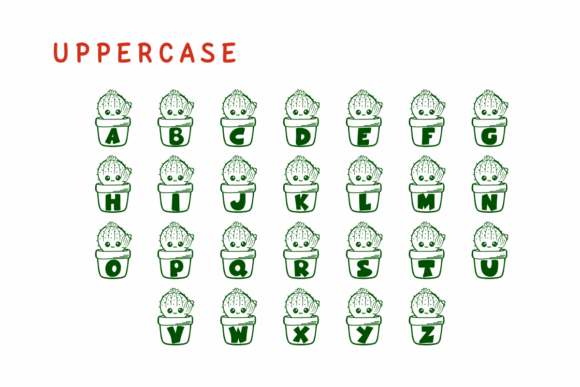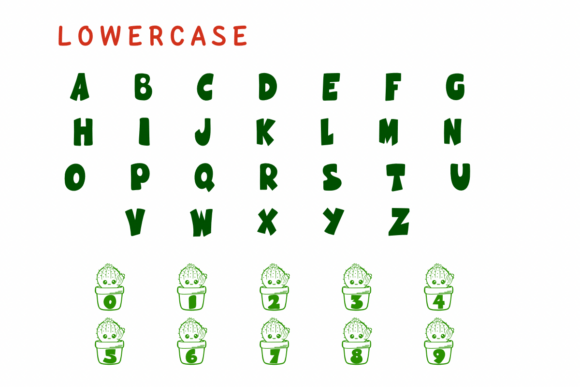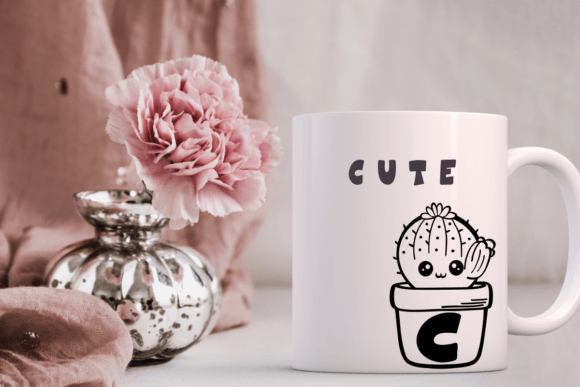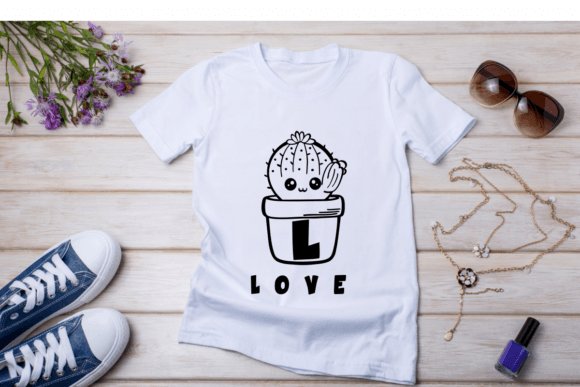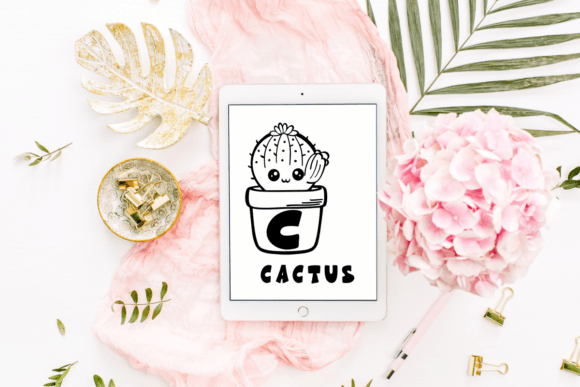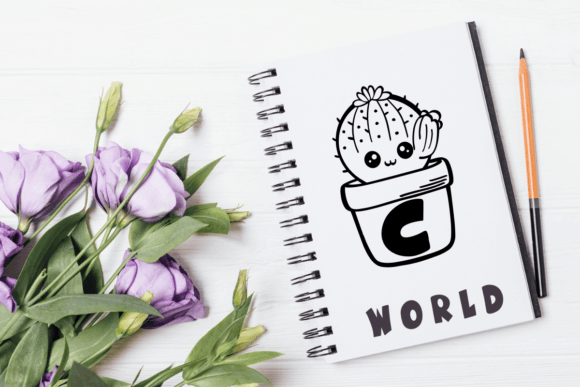
Introduction to Cute Cactus Font
As a designer, you know the moment when you stumble upon that perfect font that elevates your entire creative project. For me, it was the discovery of the Cute Cactus Font. I was working on a whimsical branding project, and I needed a typography that would match the playful vibe of the client’s personality. That’s when I found it – a fun and decorative font where each letter sits on a cactus in a pot, adding a touch of quirkiness to my design.
The Cute Cactus Font is a design resource that has become a staple in my toolkit. Its high quality and versatility make it perfect for adding a cheerful vibe to any project, from social media graphics to merchandise designs. And the best part? It’s available for free download with a transparent background, making it easy to integrate into any design.
Key Features of Cute Cactus Font
- Unique, playful design that’s perfect for creative projects, including invitations, posters, and social media graphics.
- High-quality font with a transparent background, making it easy to customize and combine with other design elements.
- Designed with a cactus theme, adding a fun and quirky touch to any design project.
Honest Review: Cute Cactus Font
As a designer, I’m always on the lookout for unique and high-quality design resources to elevate my creative projects. The Cute Cactus Font has caught my attention, and I’m excited to share my honest review with you.
- ✨ Unique and playful design style that’s perfect for branding and packaging projects.
- ✨ Includes a wide range of characters, including uppercase and lowercase letters, numbers, and punctuation marks.
- ⚠️ Limited language support, making it less suitable for international projects.
- ⚠️ Not ideal for body text or long-form content due to its playful and whimsical nature.
Overall, the Cute Cactus Font is a fantastic design resource for designers looking to add a touch of whimsy and personality to their creative projects. While it may have some limitations, its unique design style and high-quality files make it a worthwhile addition to any design library.
Tips for Getting the Most Out of Cute Cactus Font
To get the most out of the Cute Cactus Font, experiment with different font sizes, colors, and combinations. You can also use it in conjunction with other design elements, such as graphics and images, to create a unique and eye-catching design.
The Cute Cactus Font is ideal for use in a variety of creative projects, including: